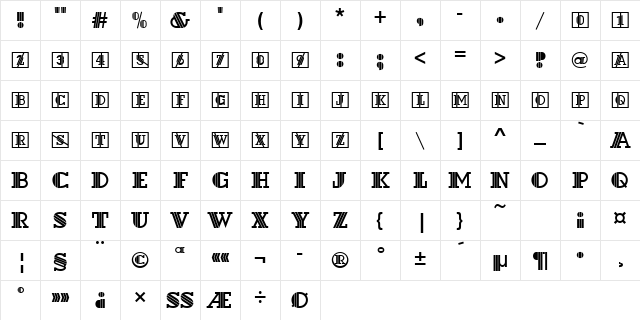
DextorIniD Regular
Design Context for DextorIniD
DextorIniD is a composed and adaptable typeface that performs quietly and consistently across a wide range of design contexts.